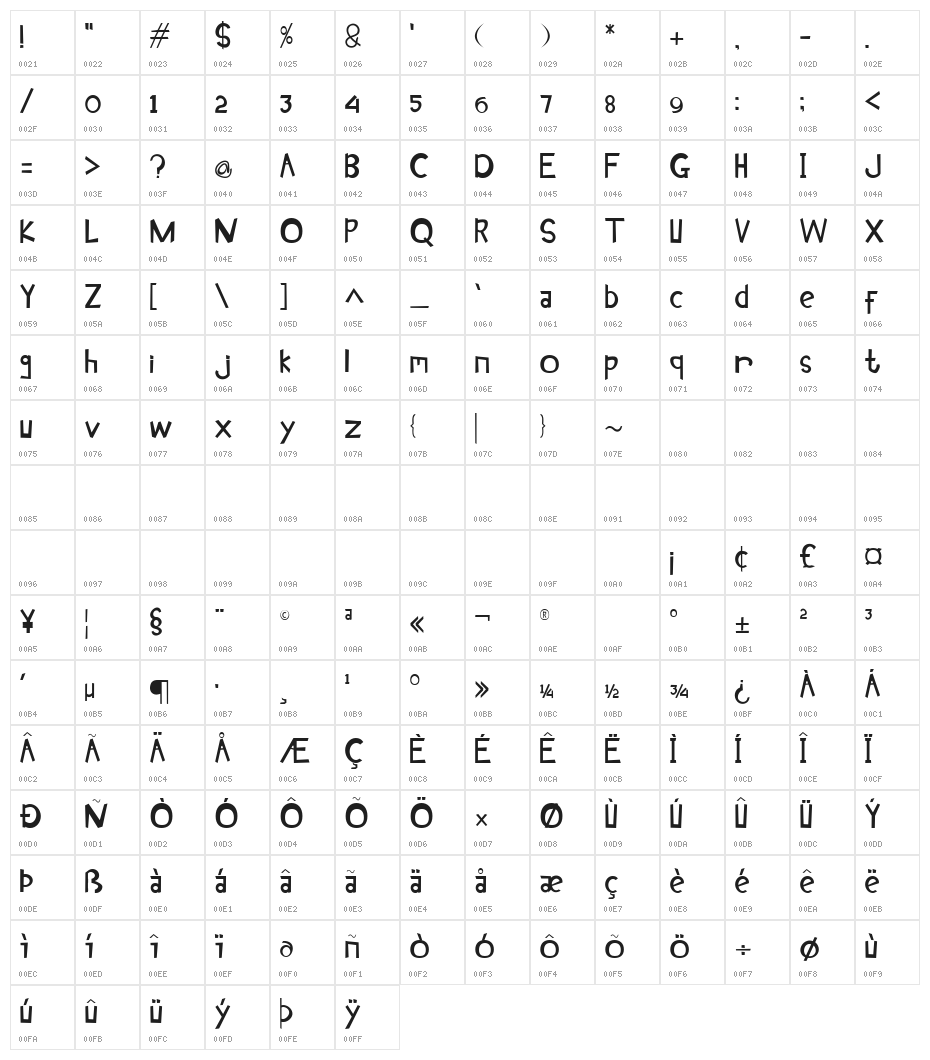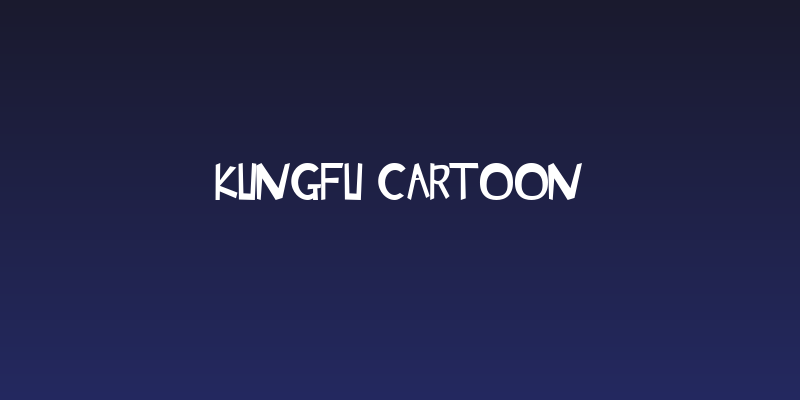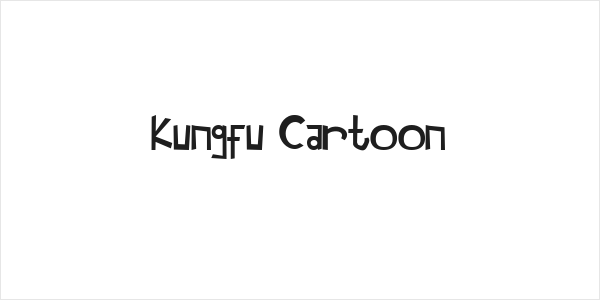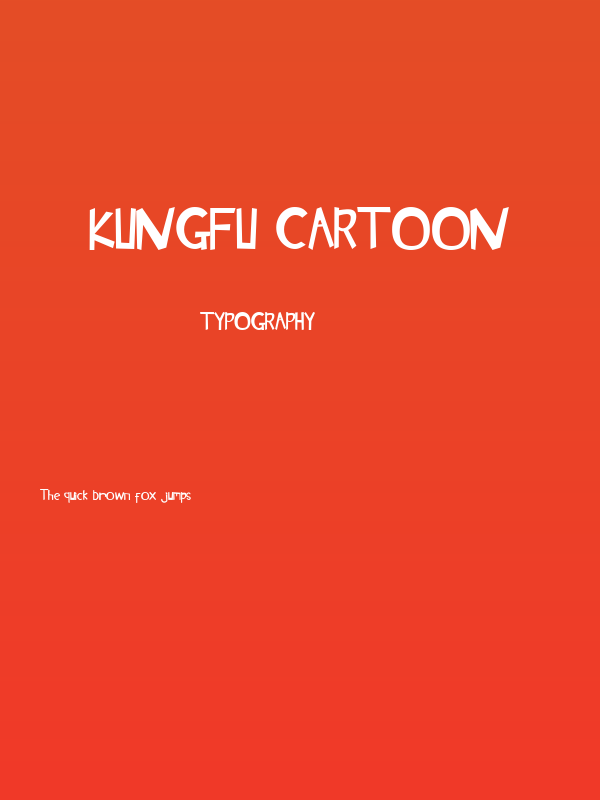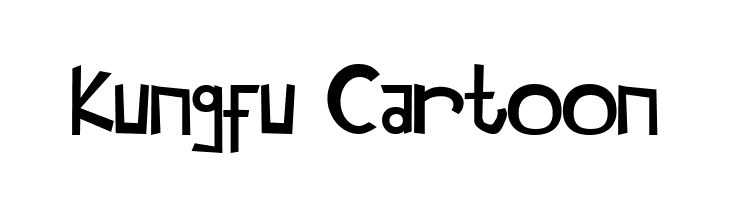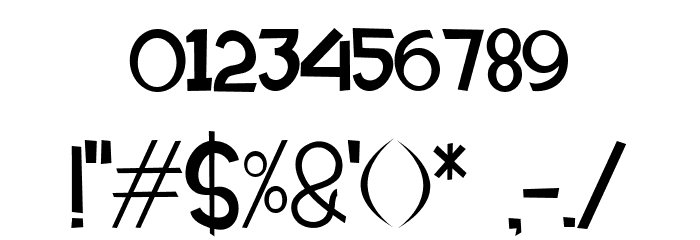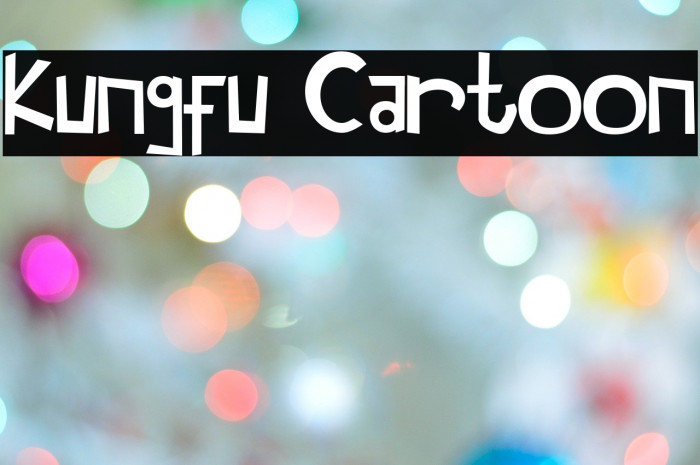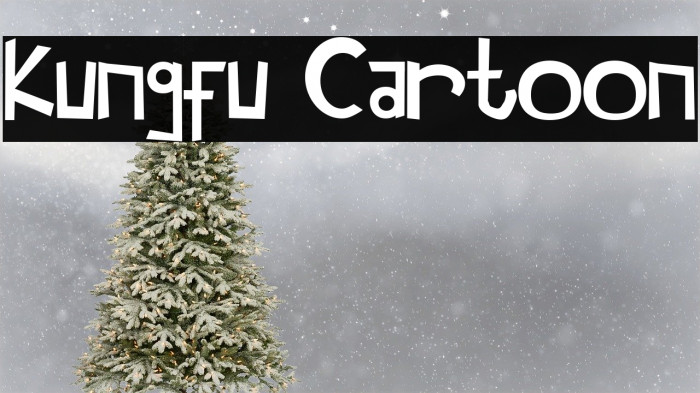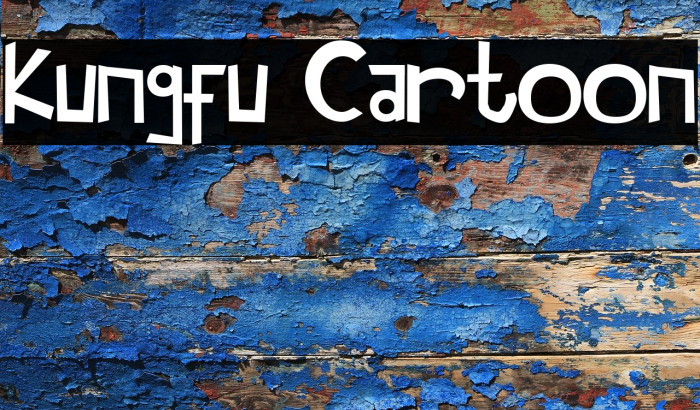
Kungfu Cartoon Font
Kungfu Cartoon Description
This playful and dynamic font features bold, exaggerated strokes with a cartoonish flair. The characters are slightly irregular, giving a hand-drawn appearance that adds to its whimsical charm. The uppercase letters are tall and commanding, while the lowercase letters maintain a consistent style with quirky angles and curves. Numbers and special characters follow the same lively design, making the font versatile for various creative applications. Its unique style is reminiscent of comic book lettering, making it ideal for projects that require a fun and engaging visual impact.
| Overall Style | Cartoonish, Playful |
| Proposed Projects | Ideal for comic books, children's books, playful branding, posters, and animated graphics. |